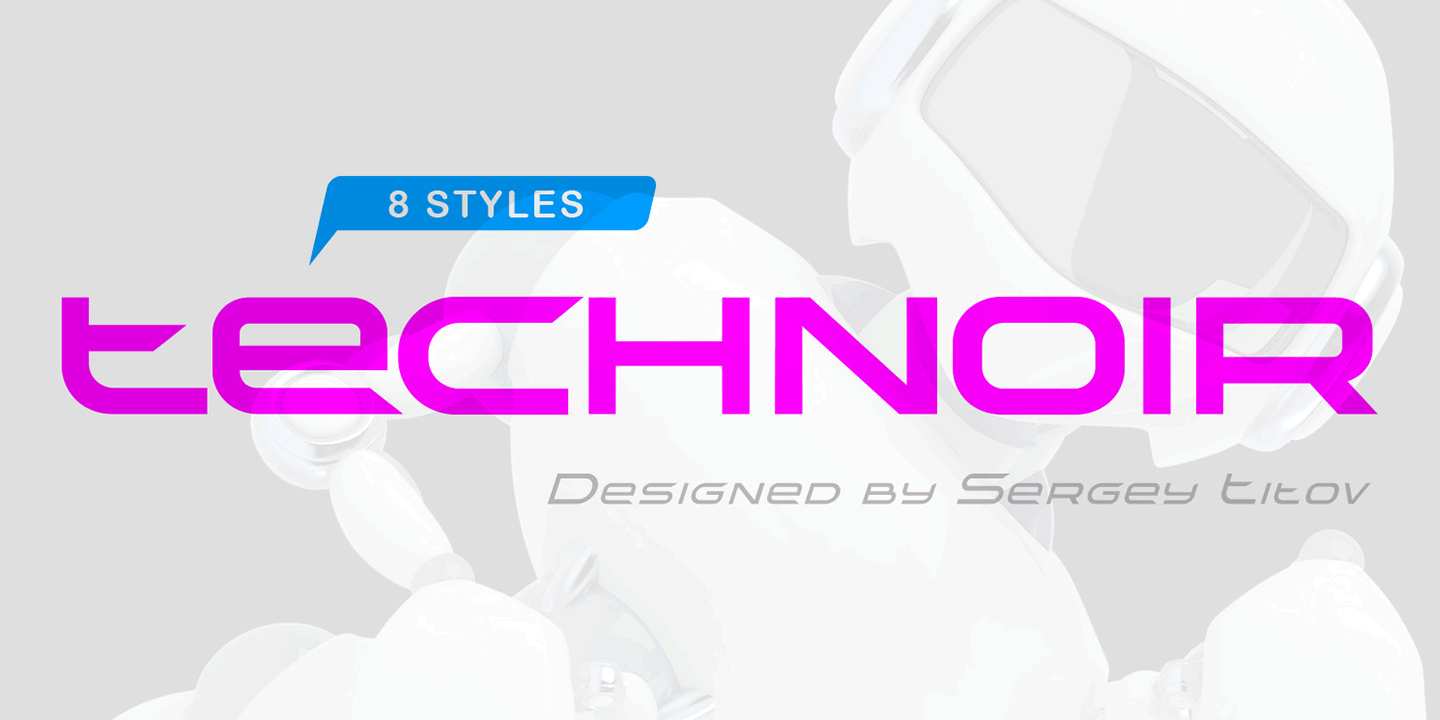
TechnoirSST Font
Clean, strong, ultra here and there. TechnoirSST it’s perfect for namecard, poster, logo, magazine, cover, banner, tshirt and headers, or even large-scale artwork.